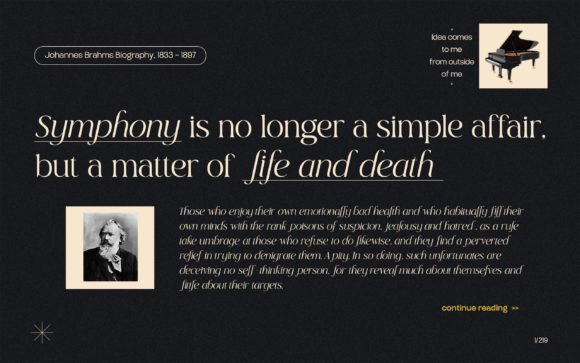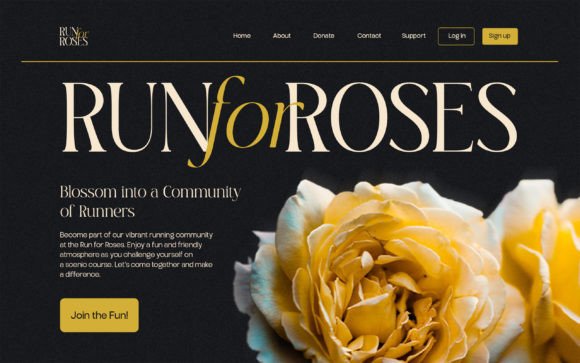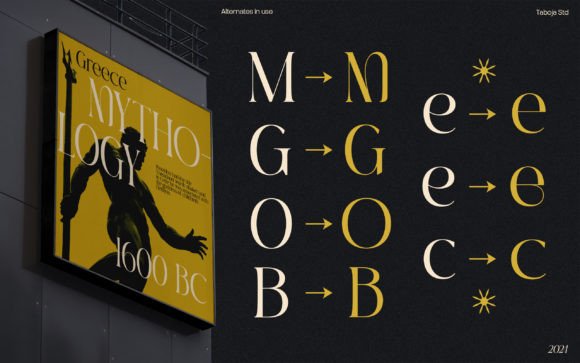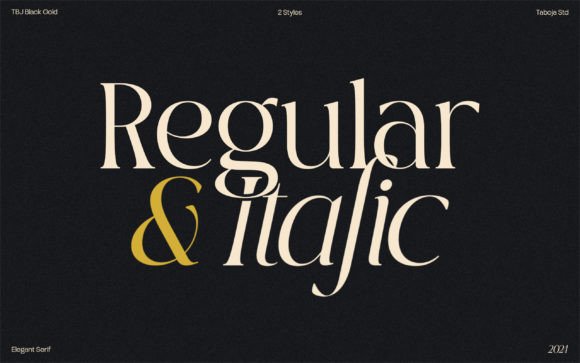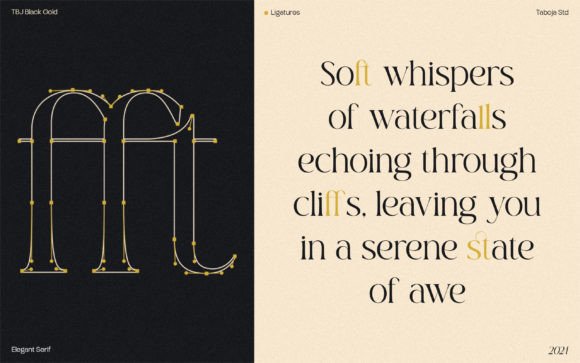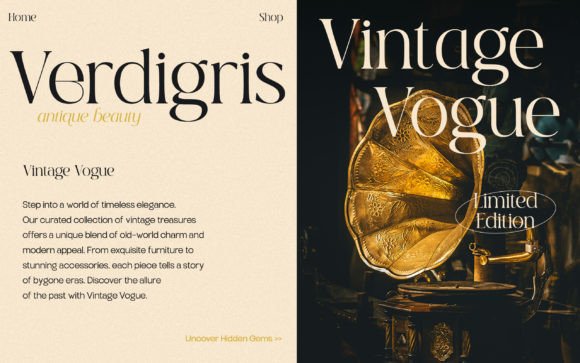
Elevate Your Design Projects with Black Gold: The Ultimate Serif Font Family
In the world of typography, a well-crafted font can make all the difference in elevating your design projects from ordinary to extraordinary. Introducing Black Gold, a versatile serif font family that exudes elegance and sophistication. Perfectly crafted for modern typography needs, Black Gold is ideal for branding, editorial design, and more. In this article, we’ll dive into the world of Black Gold and explore its features, benefits, and uses.
The Story Behind Black Gold
Black Gold is a meticulously designed serif font family that combines classic elegance with modern flair. Its creators aimed to craft a font that would meet the demands of contemporary typography, while also paying homage to the rich history of serif fonts. The result is a font family that is both timeless and trendy, perfect for designers and crafters looking to add a touch of sophistication to their projects.
Key Features of Black Gold
So, what sets Black Gold apart from other serif font families? Here are some of its key features:
- Versatile Design: Black Gold is a versatile font family that can be used for a wide range of design projects, from branding and editorial design to packaging and advertising.
- Elegant Serif: The font features a classic serif design with subtle flair, perfect for adding a touch of sophistication to your projects.
- Modern Twist: Black Gold has a modern twist that sets it apart from traditional serif fonts, making it perfect for contemporary design projects.
- Highly Legible: The font is highly legible, even at small sizes, making it perfect for body text and captions.
Benefits of Using Black Gold
So, why should you choose Black Gold for your design projects? Here are some benefits of using this versatile font family:
- Elevate Your Brand: Black Gold can help elevate your brand by adding a touch of sophistication and elegance to your design projects.
- Stand Out from the Crowd: The font’s unique design and modern twist can help your design projects stand out from the crowd and grab attention.
- Save Time: With Black Gold, you can save time and effort by using a single font family for multiple design projects.
Uses of Black Gold
Black Gold is a versatile font family that can be used for a wide range of design projects, including:
- Branding: Use Black Gold to create elegant and sophisticated brand identities that stand out from the crowd.
- Editorial Design: The font is perfect for editorial design projects, including magazines, newspapers, and books.
- Packaging: Black Gold can be used for packaging design projects, including product labels and packaging materials.
- Advertising: The font is ideal for advertising projects, including print ads, digital ads, and billboards.
In conclusion, Black Gold is a versatile serif font family that exudes elegance and sophistication. Perfectly crafted for modern typography needs, Black Gold is ideal for branding, editorial design, and more. With its key features, benefits, and uses, Black Gold is a must-have font family for designers and crafters looking to elevate their design projects. So why wait? Download Black Gold today and take your design projects to the next level!
- What is Black Gold? Black Gold is a versatile serif font family that exudes elegance and sophistication.
- What is Black Gold used for? Black Gold can be used for a wide range of design projects, including branding, editorial design, packaging, and advertising.